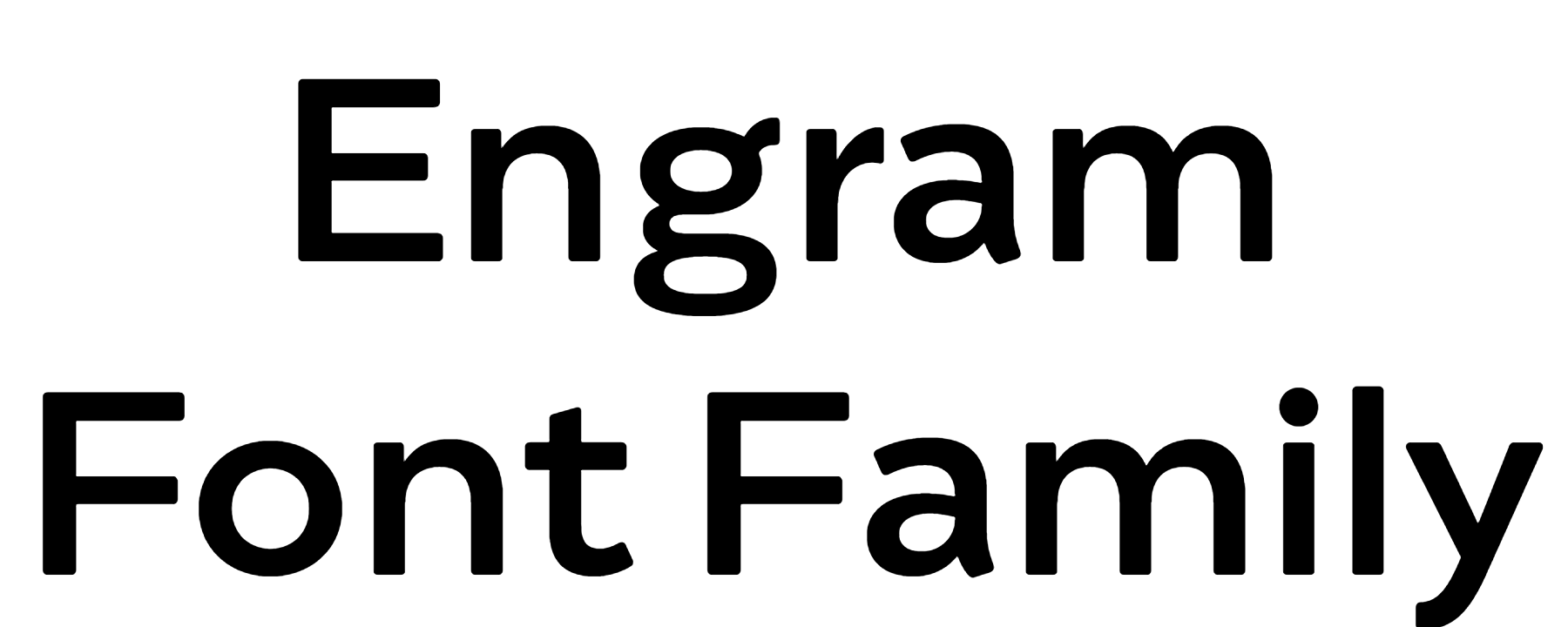
Engram
Engram is a sans serif font created by Mateusz Machalski and released through MACHALSKI.WTF (2020). Simple, open letter shapes keep it easy to read at almost any size, from app buttons to big headlines. The free download includes two styles, and you can try every one of them with your own text in the preview above.
- Designer: Mateusz Machalski
- Publisher: MACHALSKI.WTF
- Weights: Light (300) to SemiBold (600)
- Glyphs: 96 in the Regular style
With complete upper and lowercase letters and all ten digits, Engram is ready for real wording, not just a single headline. Common punctuation such as &, !, ? and @ is included as well. It doesn't include accented letters such as é or ñ, which makes it an English-only font.
Designers usually reach for fonts like Engram when they're making websites, app screens and clean logos. It works for headings and body text alike. If the download has several weights, use a heavier one for titles and a lighter one for paragraphs. Because the family has more than one style, you can mix them in a single design for headings, subheadings and highlights.
No. Engram has no accented letters such as é, ñ or ü, so it's best for English text.